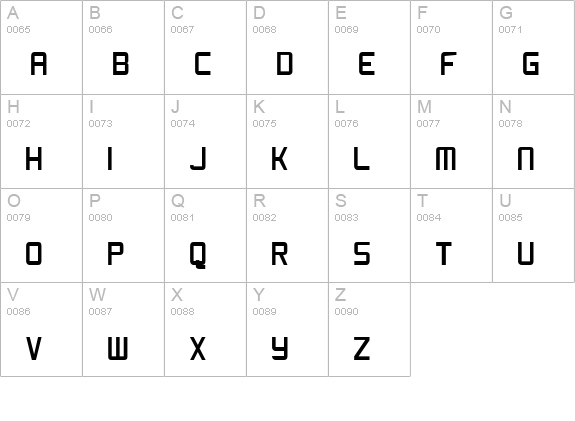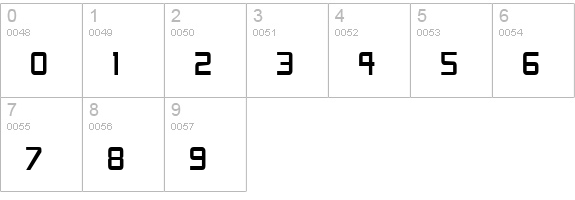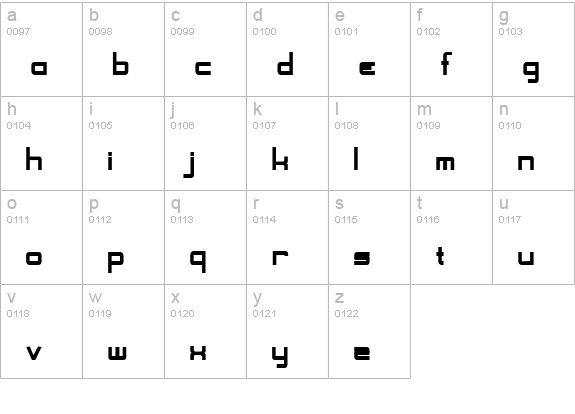
ShoomVertical Normal Font Details
ShoomVertical Normal is the standard, neutral variant in the ShoomVertical typeface family \xE2\x80\x94 well suited to general body text, paragraphs, and standard typographic work.
ShoomVertical Normal font is a sleek and modern typeface that is perfect for a variety of design projects. With its clean lines and sharp edges, this font exudes a sense of professionalism and sophistication. Whether you are creating a logo, designing a website, or crafting a poster, ShoomVertical Normal font will elevate your design to new heights. One of the best things about this font is that it is available for free. Yes, you heard it right, absolutely free! You can download ShoomVertical Normal font at FontsMarket.com without any cost. This means that you can use this font in your personal and commercial projects without having to worry about any licensing fees. It's a great opportunity to enhance your design work without breaking the bank. Not only is ShoomVertical Normal font free, it also offers a wide range of characters and glyphs, making it versatile and suitable for various languages and typographic needs. Its legibility and readability ensure that your message will be conveyed effectively, no matter the size or context. So, why wait? Take advantage of this amazing opportunity to add ShoomVertical Normal font to your font library. Download it for free at FontsMarket.com and start creating stunning designs that will captivate your audience. Embrace the power of this font and let your creativity soar!